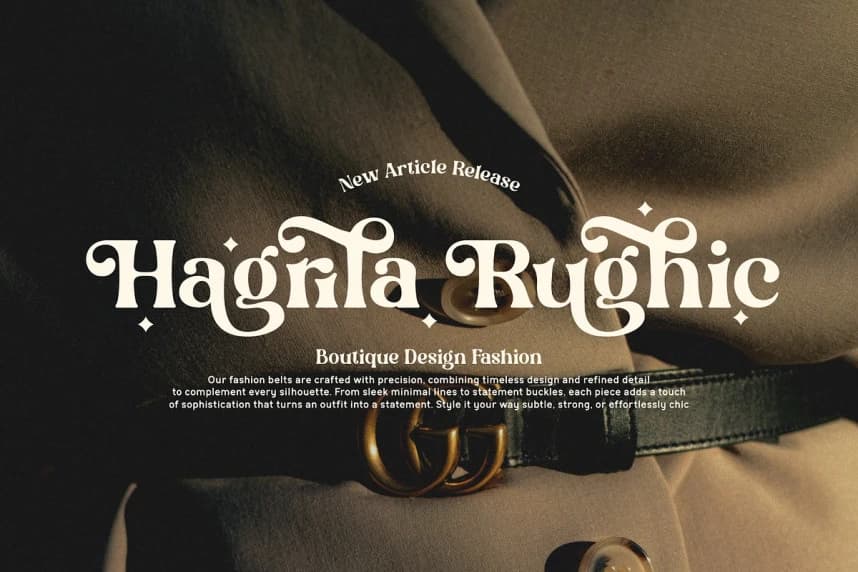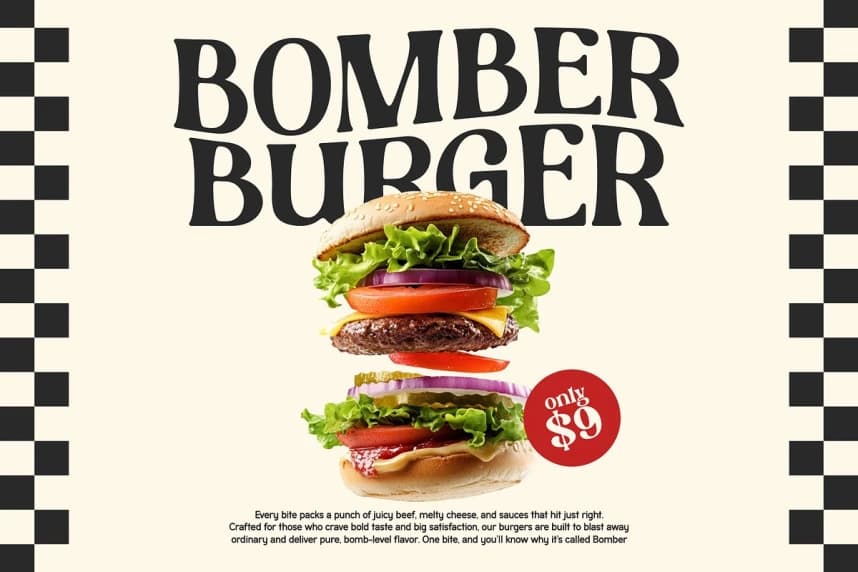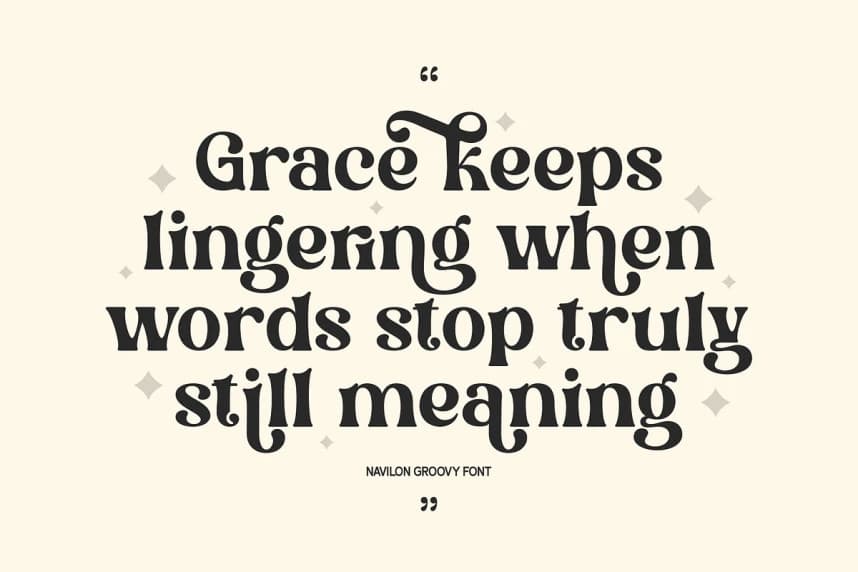
Navilon Font
Navilon Font is a bold, retro-inspired serif display typeface that combines classic elegance with a distinctive groovy personality. Whether you’re designing a boutique fashion brand, a vintage burger joint, or a high-end product label